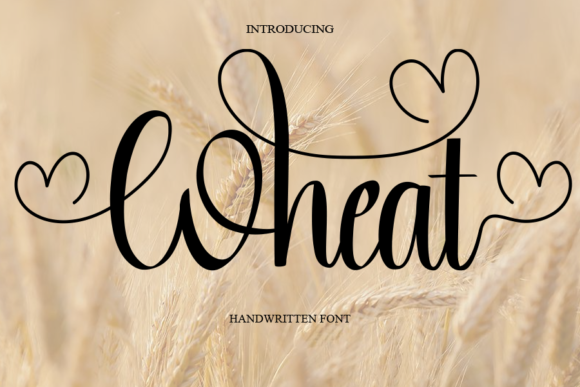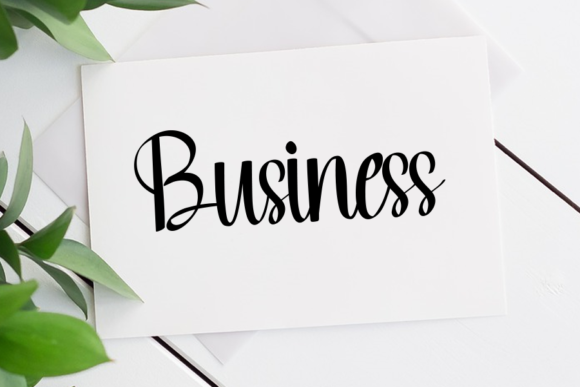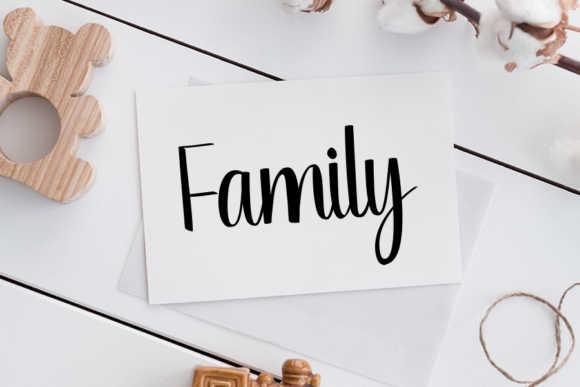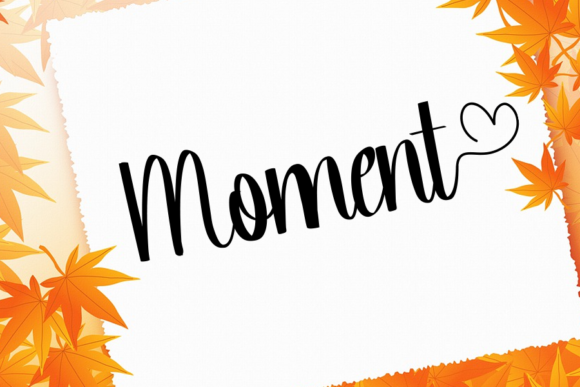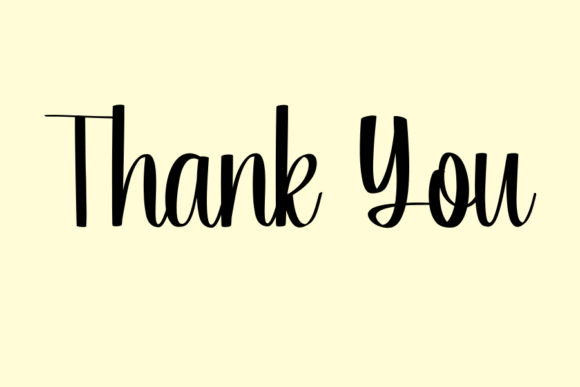
Wheat Font
About Wheat Font
“Wheat” is a relaxed handwritten font that combines a modern and whimsical style, adding a touch of fun and coolness to your designs. With its laid-back and informal vibe, this font is crafted to immerse your designs into a playful and carefree world.
The relaxed nature of “Wheat” makes it a versatile choice for a variety of design projects. Whether you’re working on branding, social media graphics, product packaging, or any creative endeavor that could benefit from a modern yet whimsical touch, this font is designed to bring a sense of fun to your work.
The modern style of “Wheat” ensures that it can seamlessly integrate into contemporary design contexts, while its whimsical elements add a playful twist. This combination makes the font suitable for projects aimed at a diverse audience, offering a relaxed and approachable feel.
Consider using “Wheat” when you want to infuse your designs with a sense of laid-back coolness. Whether it’s for posters, banners, merchandise, or any other project where a relaxed handwritten font is fitting, “Wheat” can contribute to creating a fun and enjoyable visual experience.